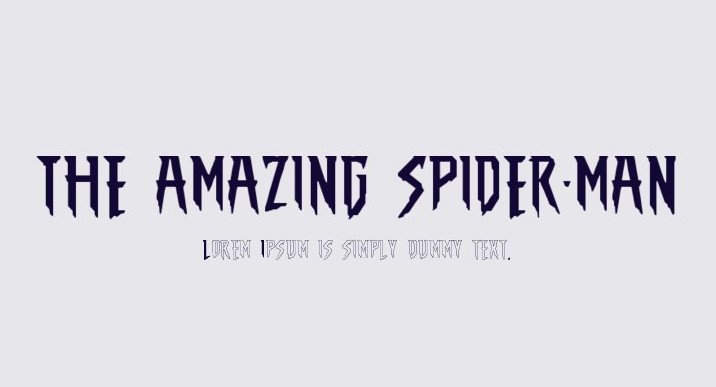
Let’s welcome the popular and great comic typeface that is The Amazing Spider-Man Font which was designed by taking inspiration from the old Spider-Man comic movie that was released in the 70s. You can see its personal and great look in the picture that we are attached here for you to get an idea about the greatness of this font characters.